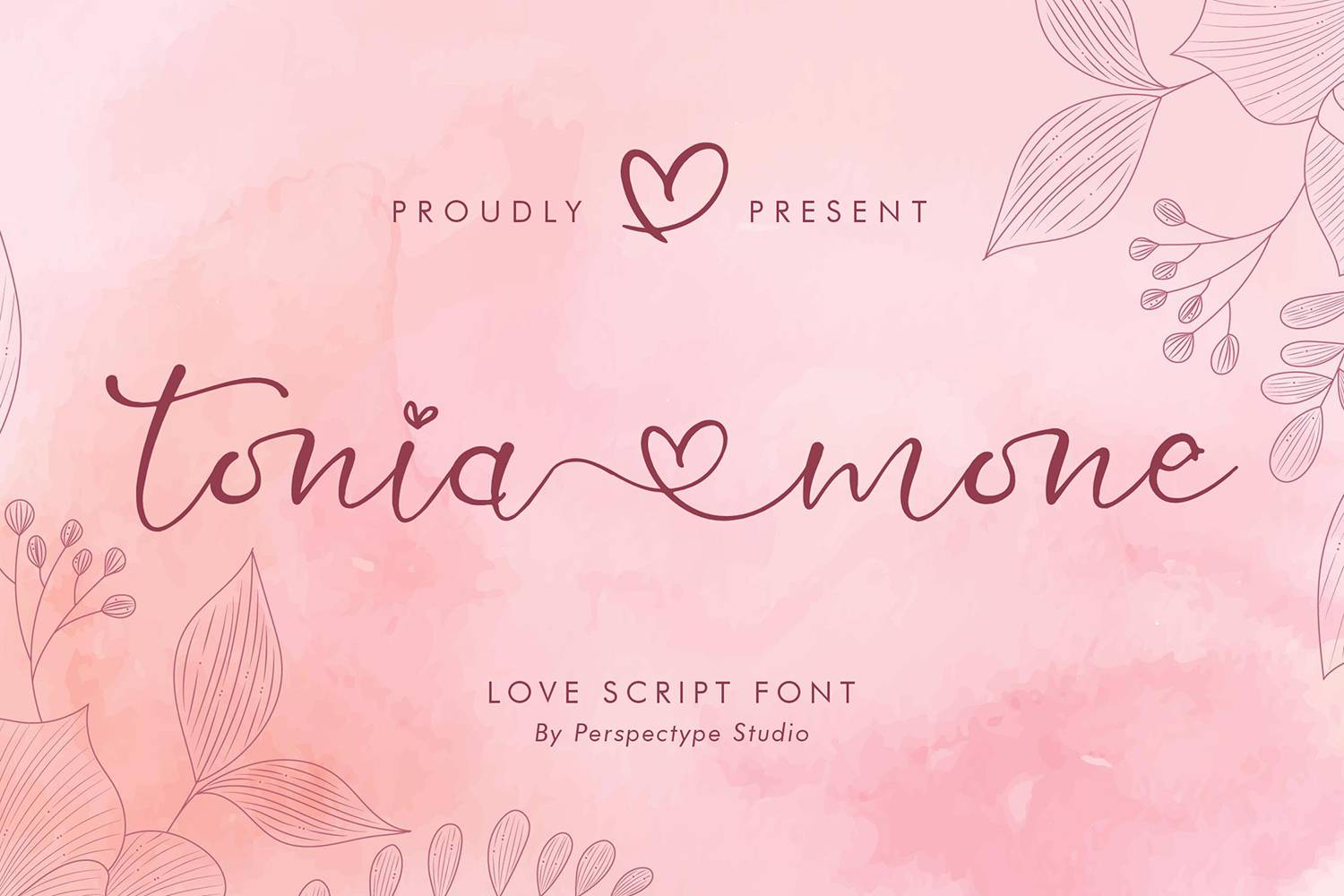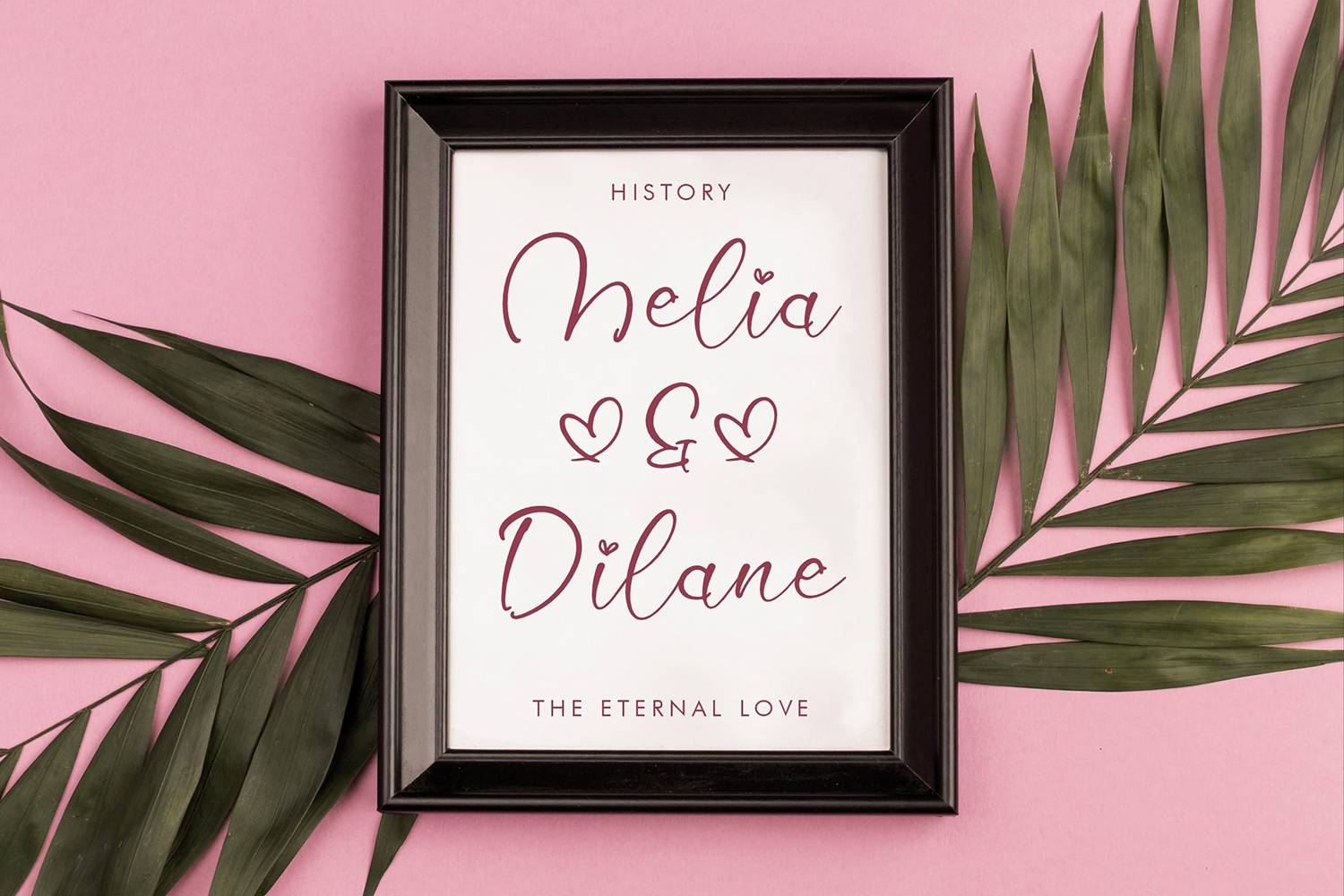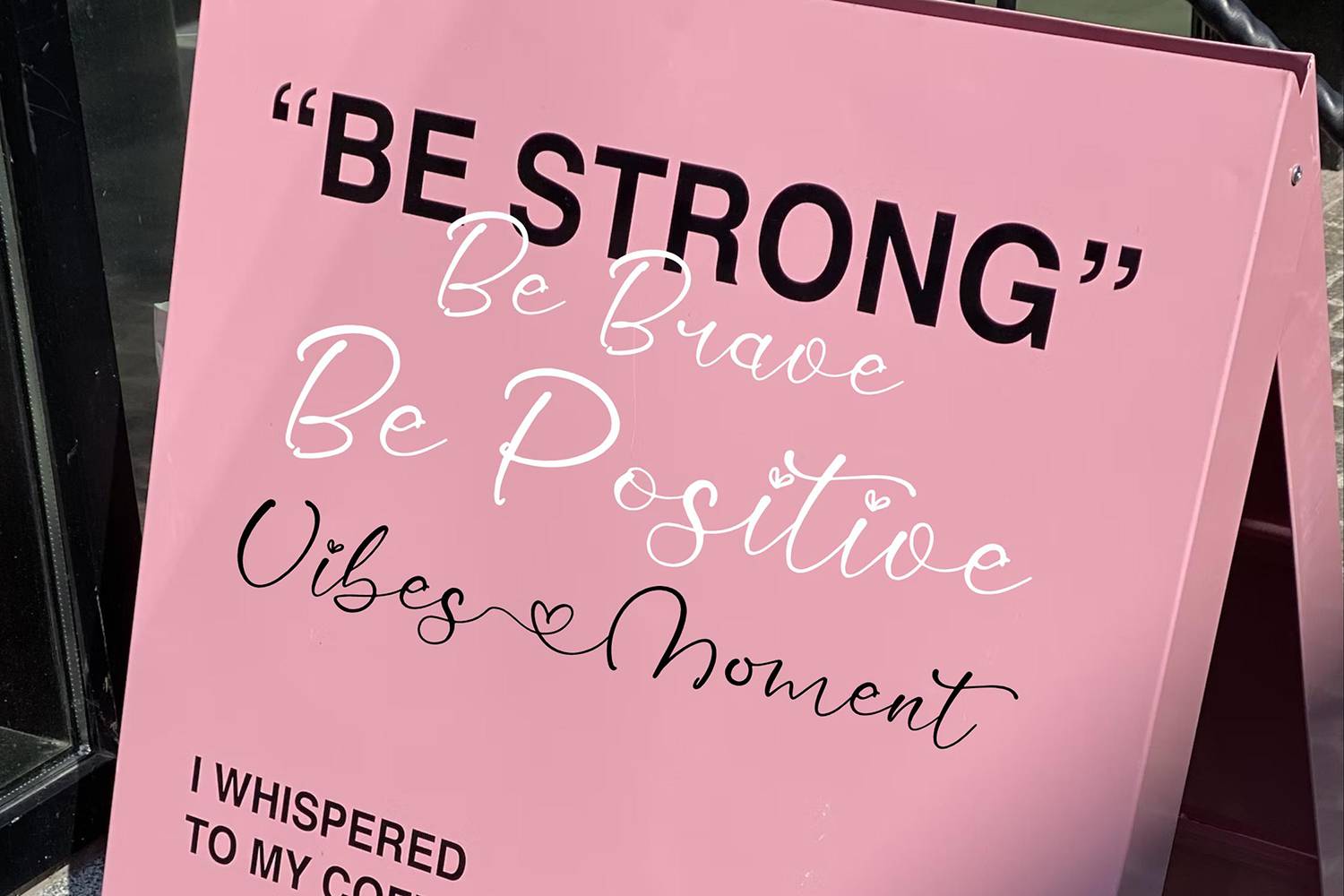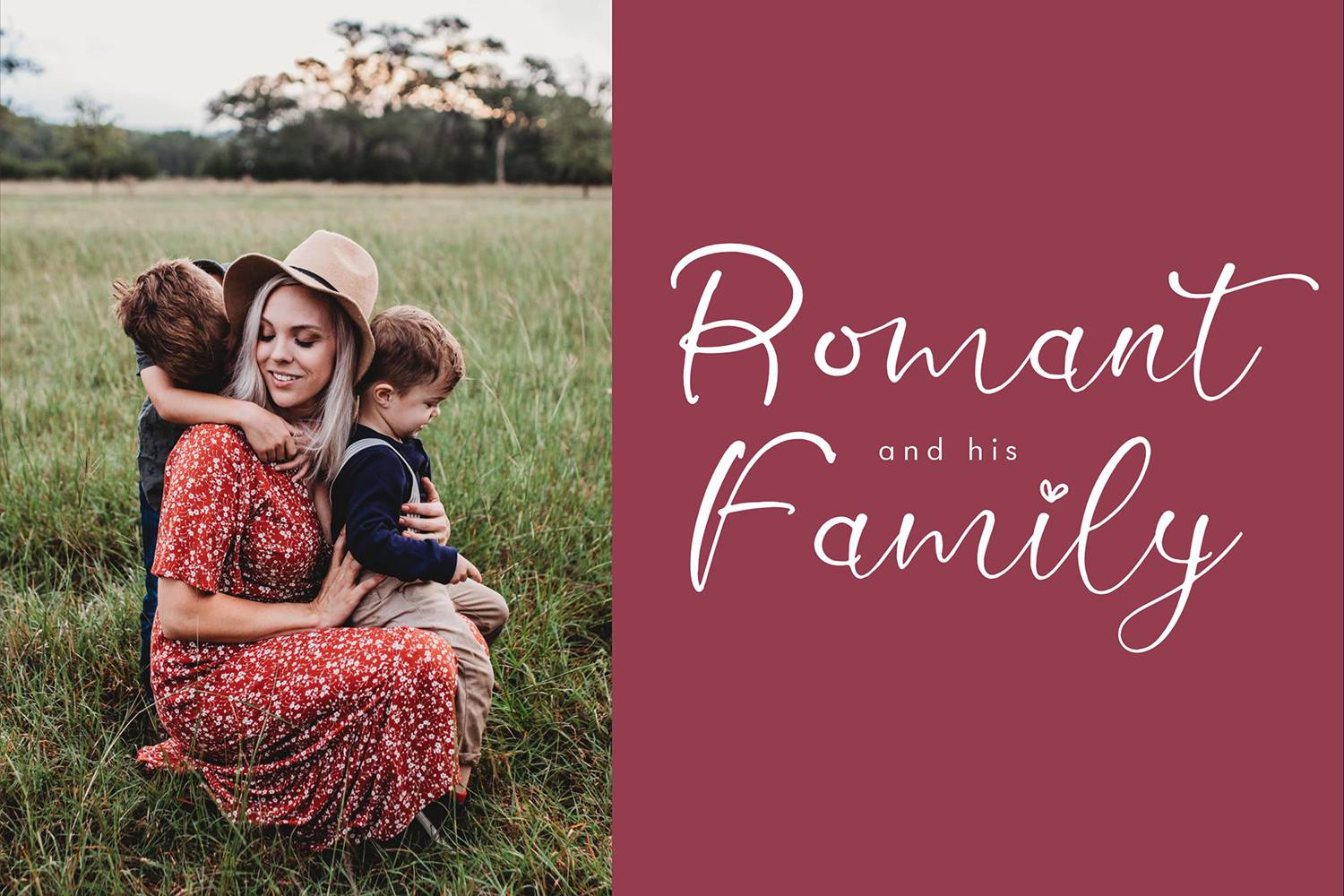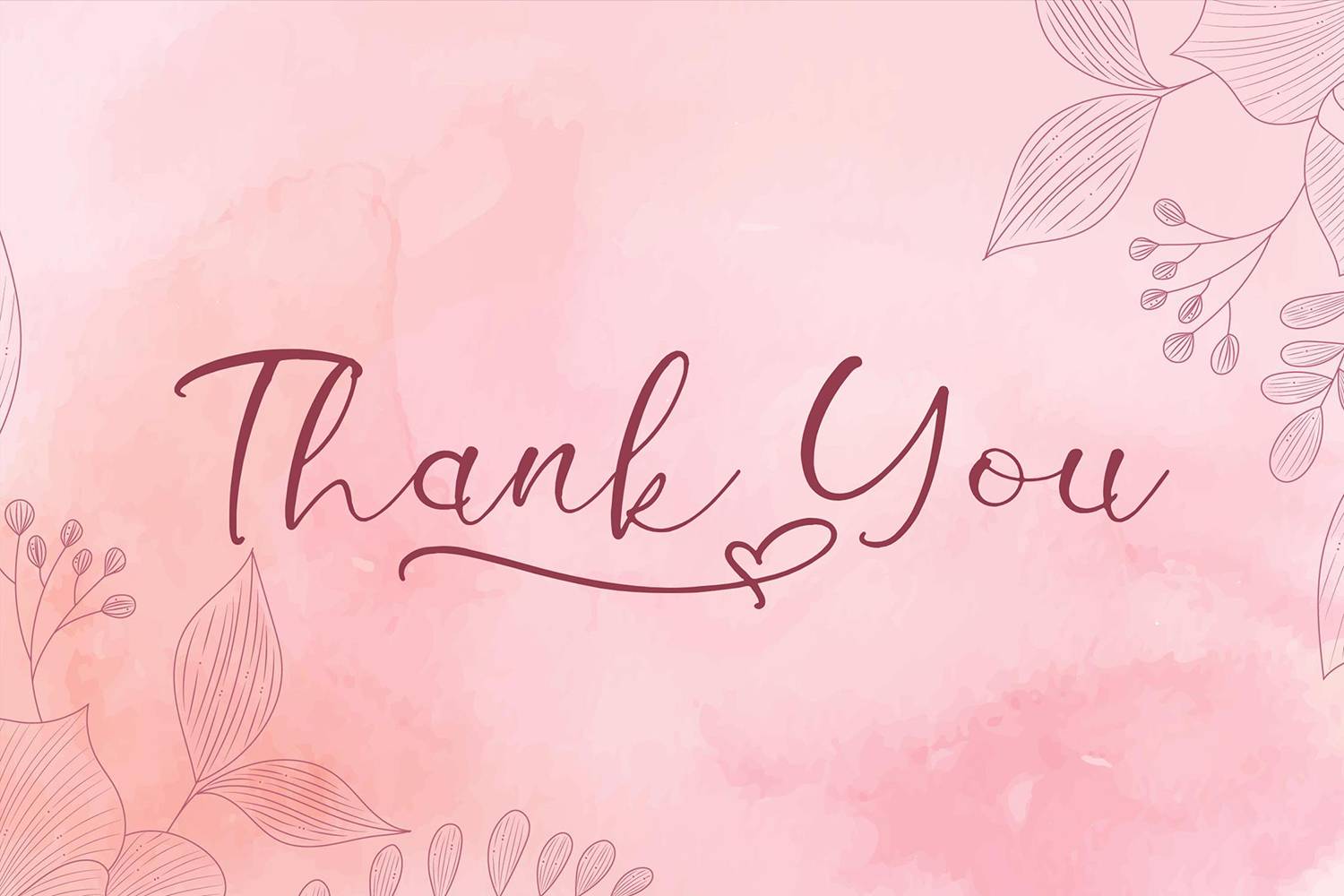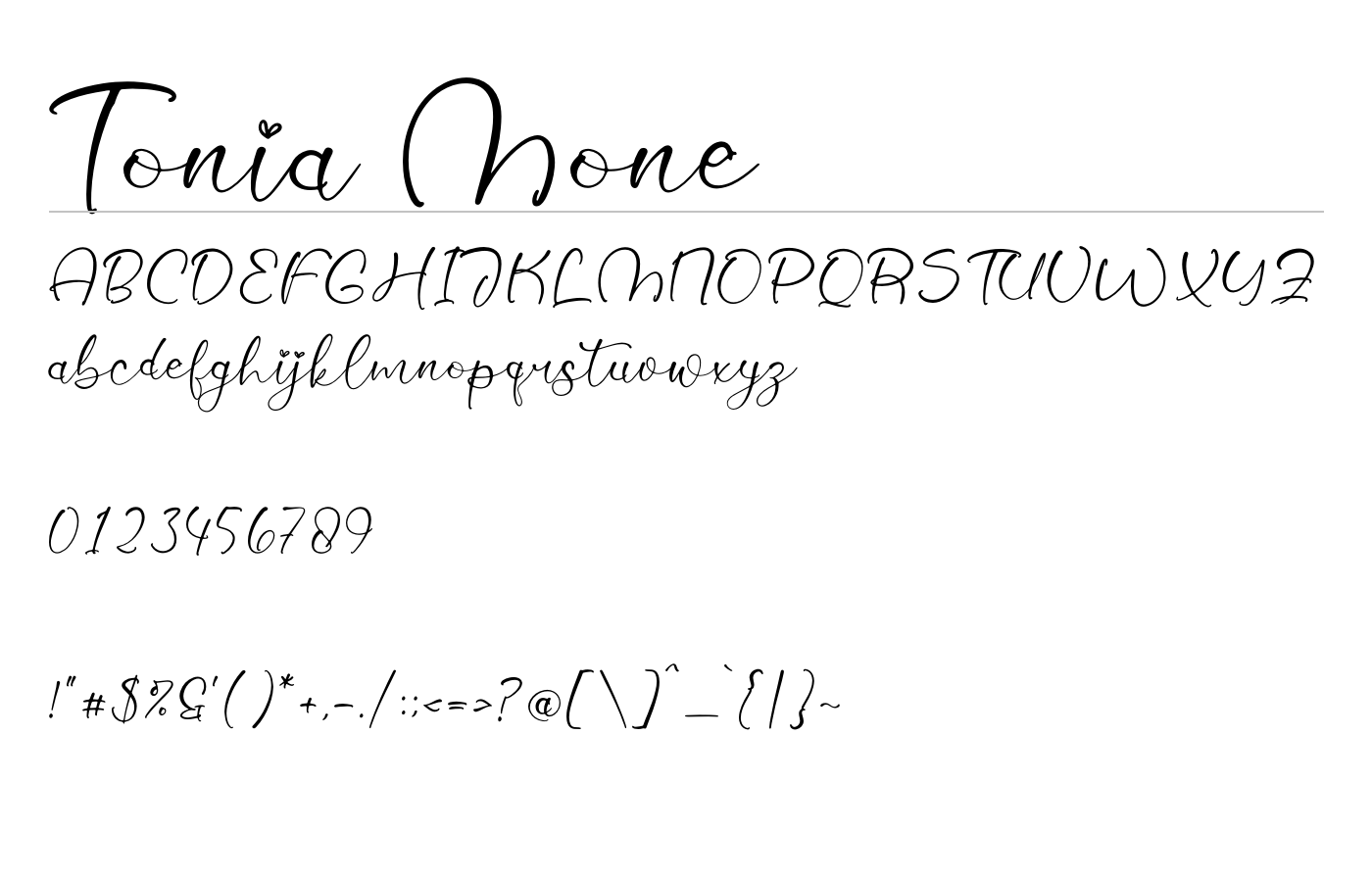
Tonia Mone is a delicate, handwritten script font featuring elegant, flowing letterforms with a light weight and airy feel. Its tall x-height and slender strokes lend a graceful, feminine charm, making it ideal for wedding invitations, branding, and any project seeking a romantic or sophisticated touch. The font's playful yet refined style works beautifully for headlines, logos, and decorative text where a personal, stylish look is desired.
Tonia Mone Font
About Tonia Mone Font